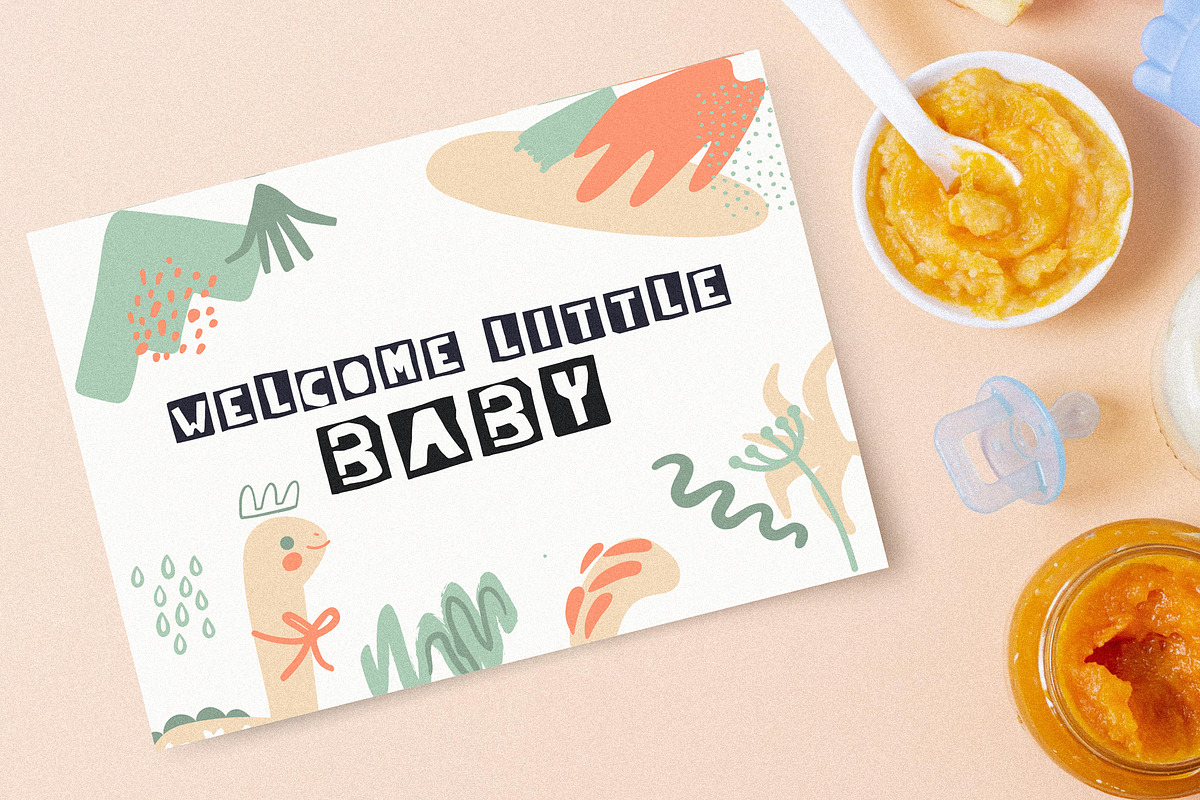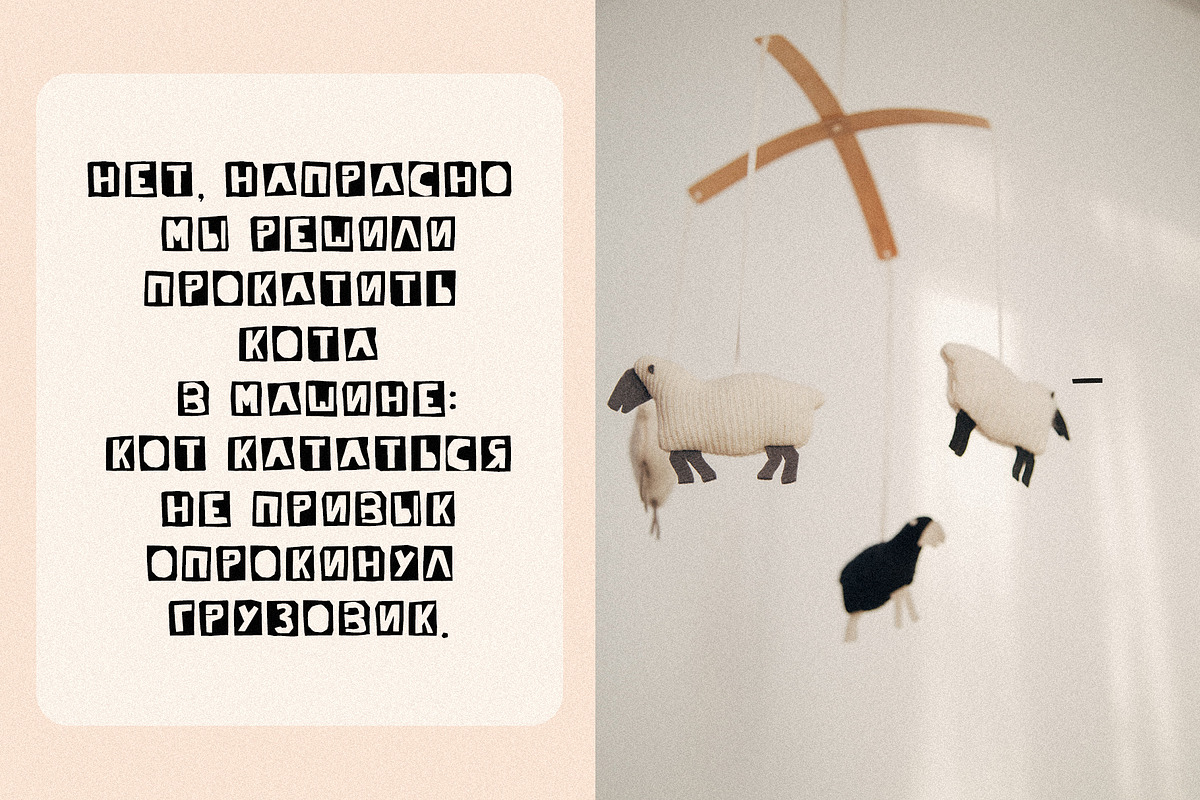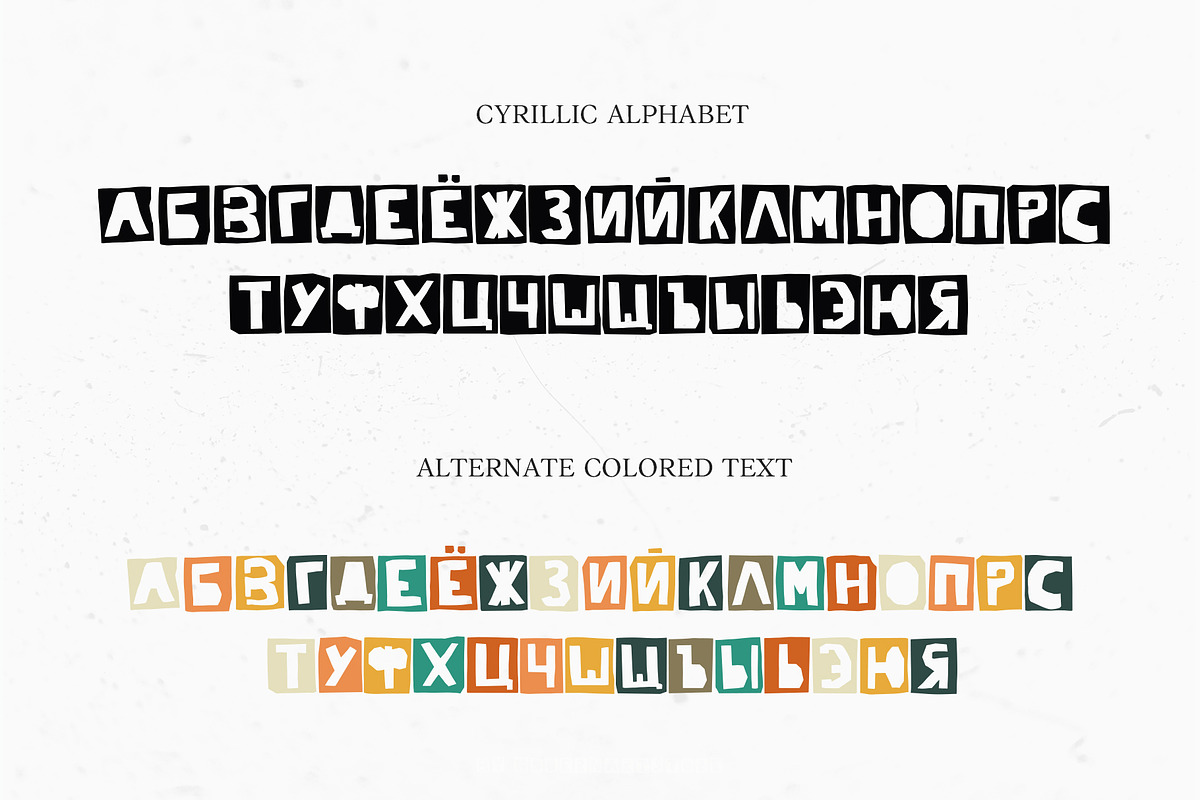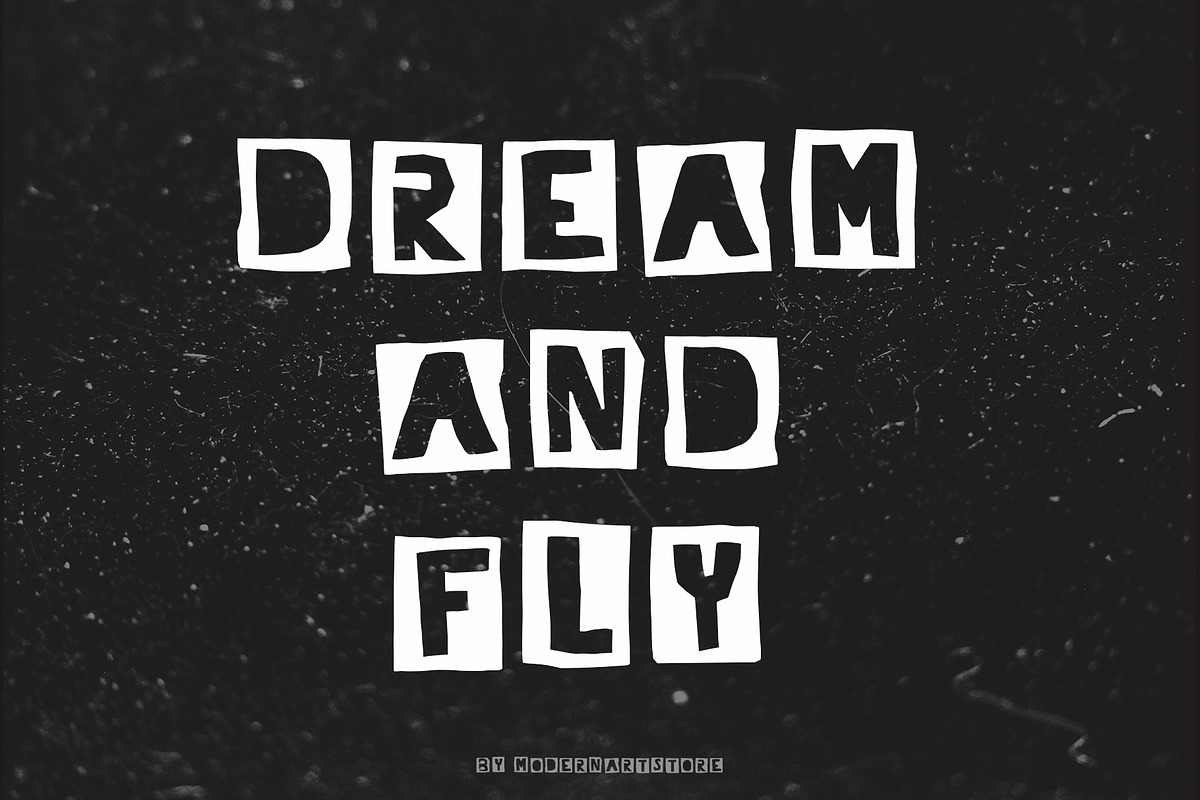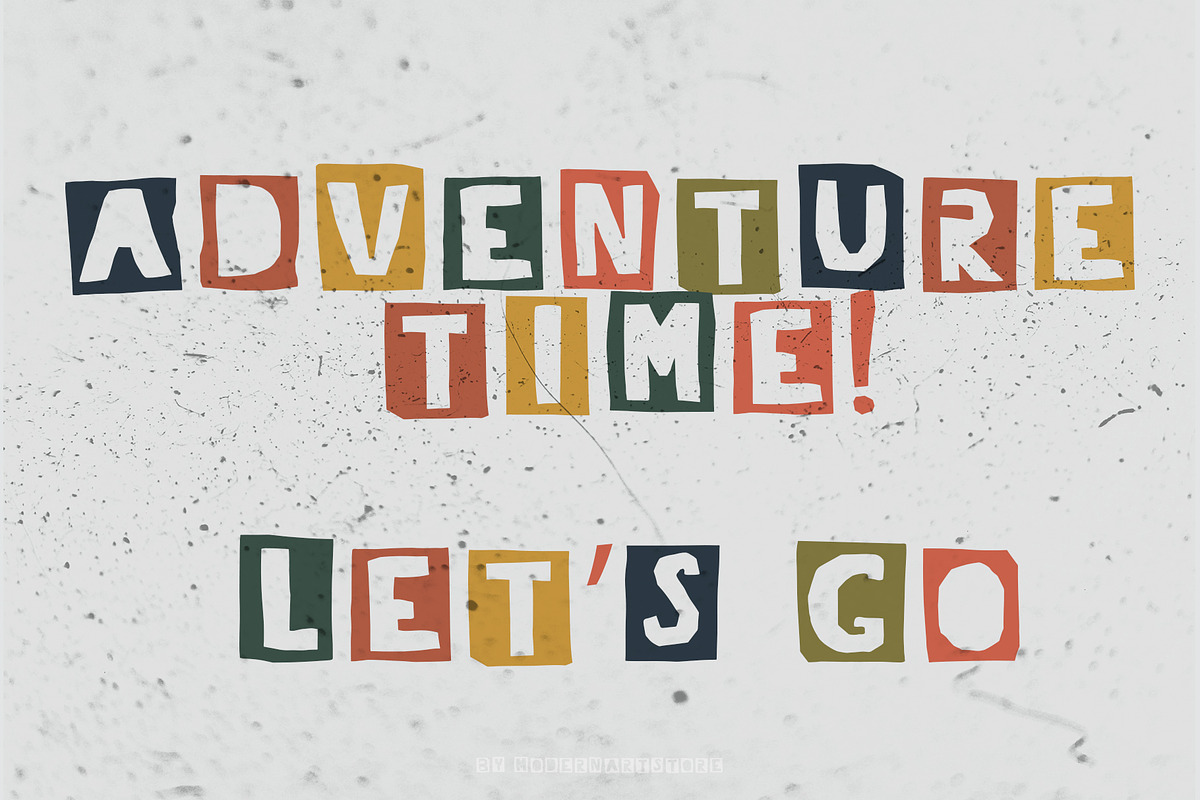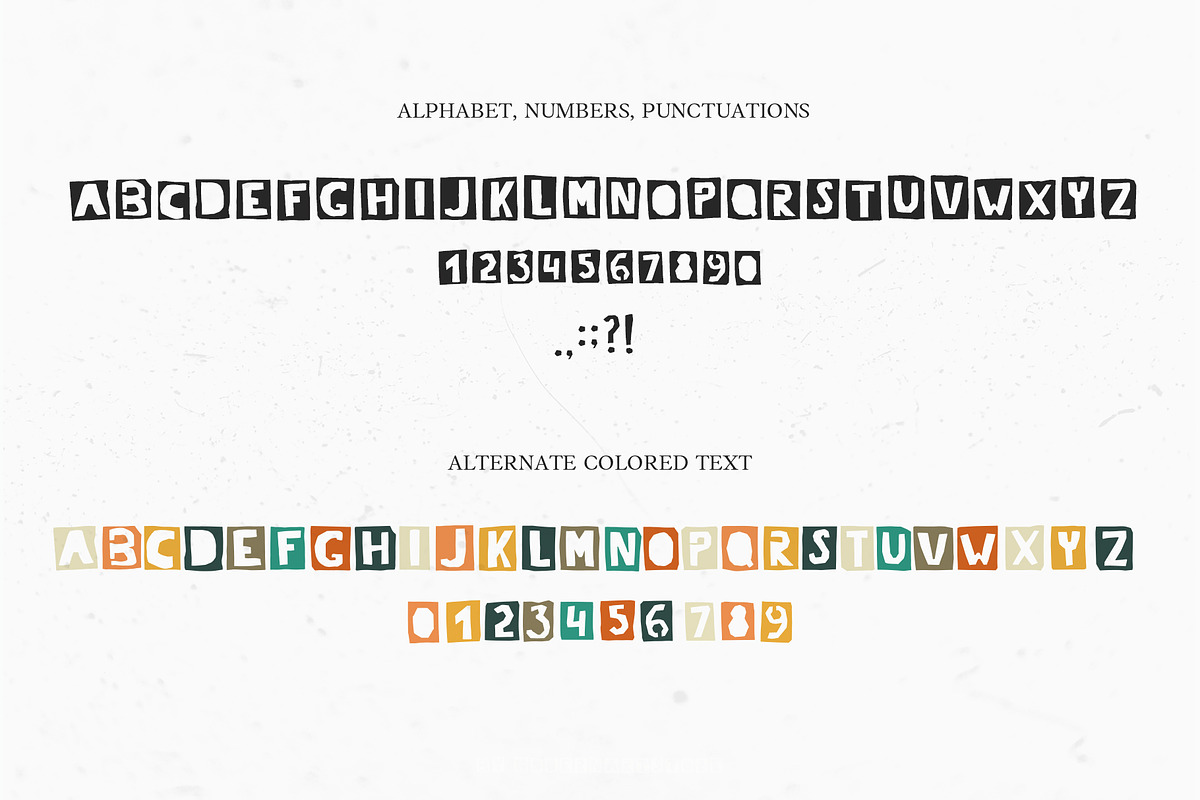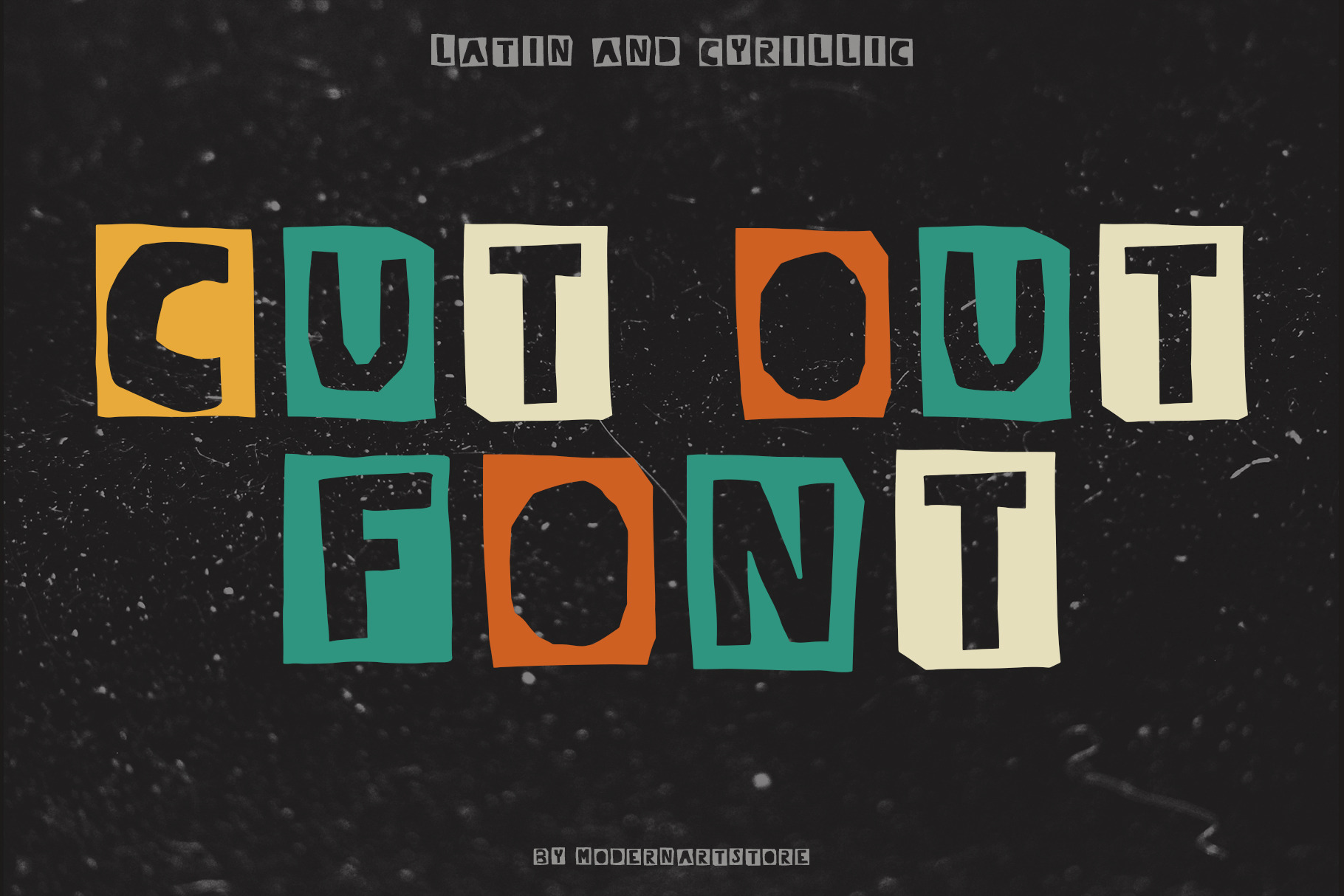
CUT OUT FONT Paper Cut Handmade
Introducing new fantasy CUT OUT FONT font for posters, blogs, kids designs, party cards, social media design and other! This font includes Cyrillic alphabet, numbers, punctuation and latin alphabet. Also I add a alternative symbols in retro palette. Create easy and vibrant combinations and decorate your designs with them!
WHAT'S INCLUDED: This font contains standard characters, numbers, punctuation.
- Alternative symbols in retro palette